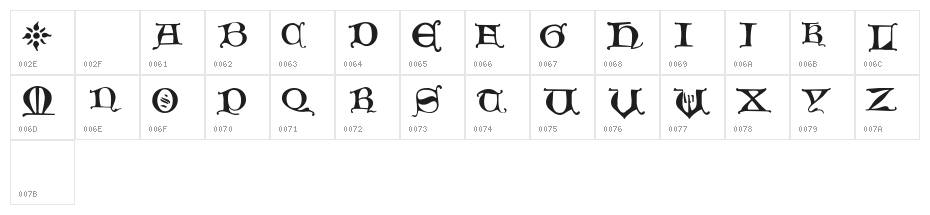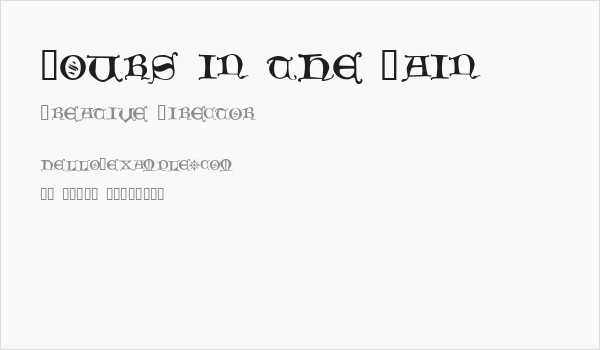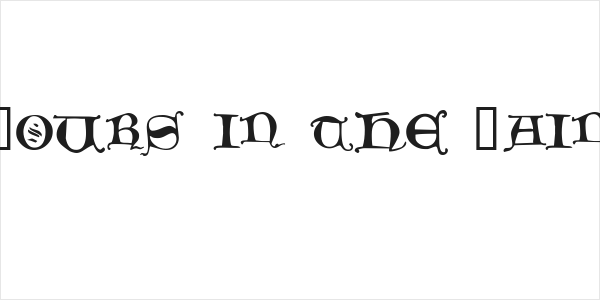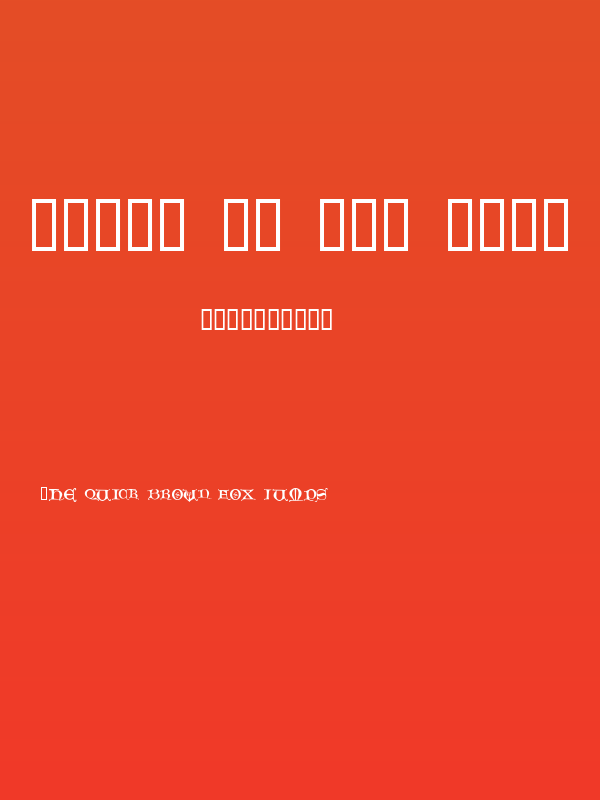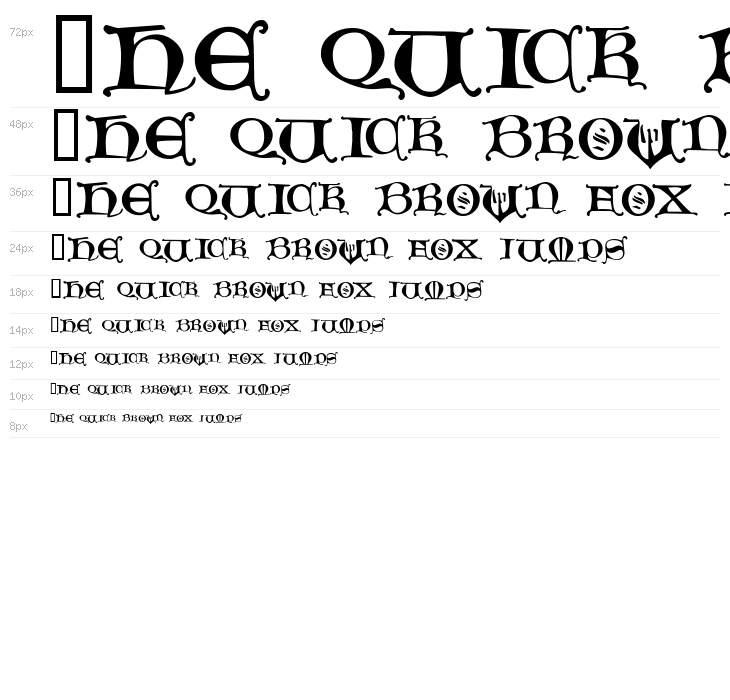
Hours in the Rain Font
Hours in the Rain Description
This font exhibits a distinct Gothic style with intricate detailing on each character. The uppercase letters are adorned with elaborate serifs and flourishes, giving them a medieval appearance. The lowercase letters maintain the same decorative elements, ensuring consistency throughout the typeface. The overall design is reminiscent of traditional calligraphy, with a modern twist that adds a unique flair. The characters are well-spaced, allowing for readability despite their ornate design. This font is ideal for projects that require a touch of elegance and historical charm.
| Proposed Projects | Suitable for wedding invitations, historical-themed posters, book covers, and branding that requires a classic and elegant touch. |